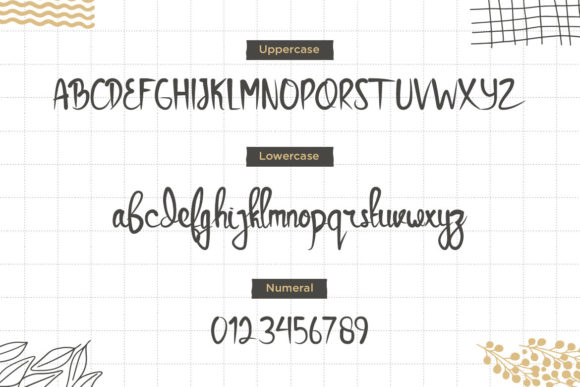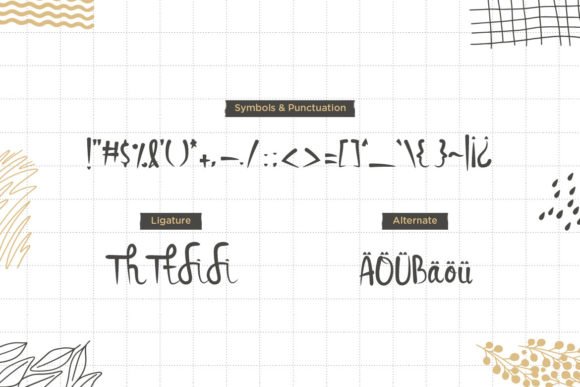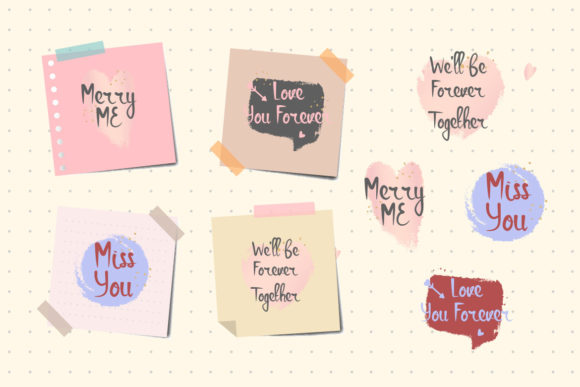
Introduction to Saluyu Font
Saluyu is a sweet, all round and flexible handwritten font.
Warm, romantic and jolly, this font will turn each of your project ideas into real works of art Have fun with this beautiful font and explore its endless variations.